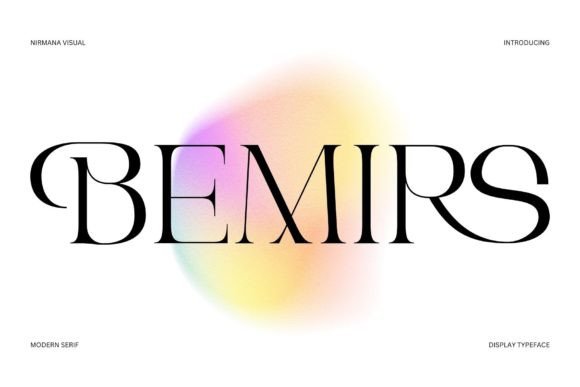
The Bemirs Font: A Renaissance-Inspired Beauty for Your Designs
I’ll never forget the struggle I faced while working on a branding project for a luxury client. I had to find the perfect font that exuded elegance, sophistication, and a touch of classic charm. After hours of scouring through font libraries, I stumbled upon Bemirs Font, and it was love at first sight! 💕 In this article, I’ll share my experience with Bemirs, its features, and how to make the most of it in your designs.
A Personal Review: What I Love About Bemirs
Bemirs Font has been a game-changer for my design projects. Here’s what I love about it:
- ✨ Beautiful typographic harmony: Bemirs offers a stunning balance of elegance and playfulness, making it perfect for a variety of design projects.
- ✅ Versatility: From logos and branding to social media posts, advertisements, and product designs, Bemirs fits right in.
- 💯 Renaissance-inspired design: The font’s classic roots give it a timeless feel that’s hard to find in modern fonts.
While Bemirs is an excellent font, it’s not without its quirks:
- 🤔 Limited availability of certain characters: Some special characters might not be available, so be sure to test the font thoroughly before using it in a project.
- ⚠️ Occasional kerning issues: As with any font, you might encounter kerning issues, especially when using it in combination with other fonts.
Bemirs Font draws inspiration from the Renaissance era, a time of great artistic and cultural transformation. The font’s creator aimed to capture the essence of this period, blending classic elegance with modern sensibilities. The result is a font that’s both timeless and versatile.
| Font Name | Bemirs Font |
| Author | Sigit Dwipa |
| What is Bemirs Font inspired by? | Bemirs Font is inspired by the Renaissance design era, characterized by its elegant and classic typography. |
| Is Bemirs available in different weights or styles? | Yes, Bemirs Font comes in various weights and styles, allowing you to experiment with different typographic hierarchies. |